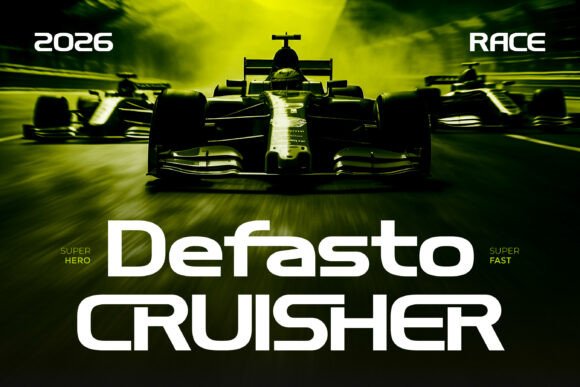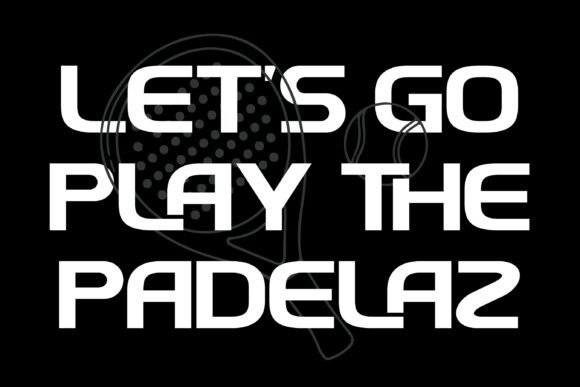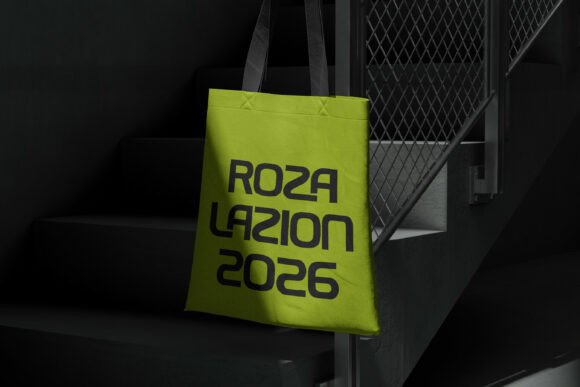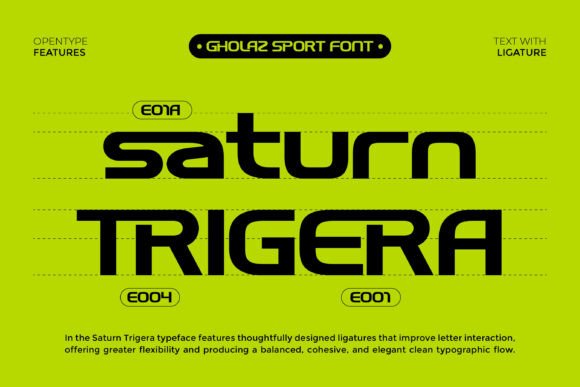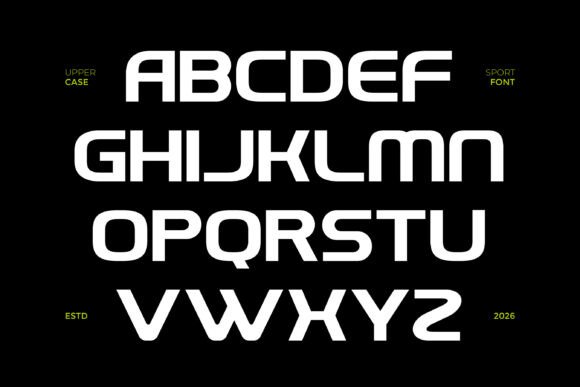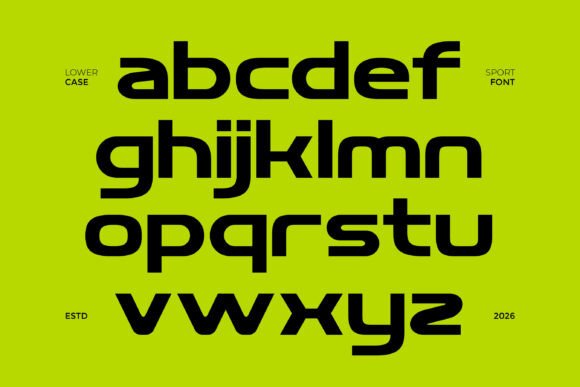
Introduction to Gholaz Font
Have you ever found yourself in the midst of a creative project, staring at a blank canvas, and desperately seeking that one element to take your design to the next level? For many designers, that elusive spark is often found in the perfect font. Enter the Gholaz Font, a modern sport sans serif font designed to deliver the kind of high-impact visual energy that demands attention and intensity.
With its bold structure, sharp edges, and dynamic letterforms, the Gholaz Font embodies the spirit of competition and performance, making it the ultimate design resource for creatives who crave a high-quality font that can elevate their work. Whether you’re working on a project with a transparent background or need a font that can stand out in a crowded space, the Gholaz Font is a valuable addition to any designer’s toolkit.
Key Features of Gholaz Font
- High-quality font design, ideal for creative projects that require a unique touch
- Perfect for designers and artists working on creative projects that demand a high level of visual sophistication
Honest Review: Gholaz Font
I recently stumbled upon the Gholaz Font, and I must say it’s been a great addition to my design resource library. The font has a unique and modern look that’s perfect for creative projects that require a touch of elegance and sophistication.
- Unique and modern design
- High quality and versatile
- May not be suitable for very small text sizes due to its modern and decorative design
- May not be as readable in certain fonts or color combinations
Overall, I’m quite impressed with the Gholaz Font. It’s a great addition to any design library, and I would highly recommend it to designers who are working on creative projects that require a unique and modern look.
Tips for Getting the Most Out of Gholaz Font
For optimal results, use the Gholaz Font in conjunction with a high-quality image or design element. Experiment with different font combinations and styles to add visual interest to your design.
The Gholaz Font is suitable for a variety of creative projects, including logos, business cards, and social media graphics. Its unique style makes it an excellent choice for designers looking to add a touch of elegance to their designs.